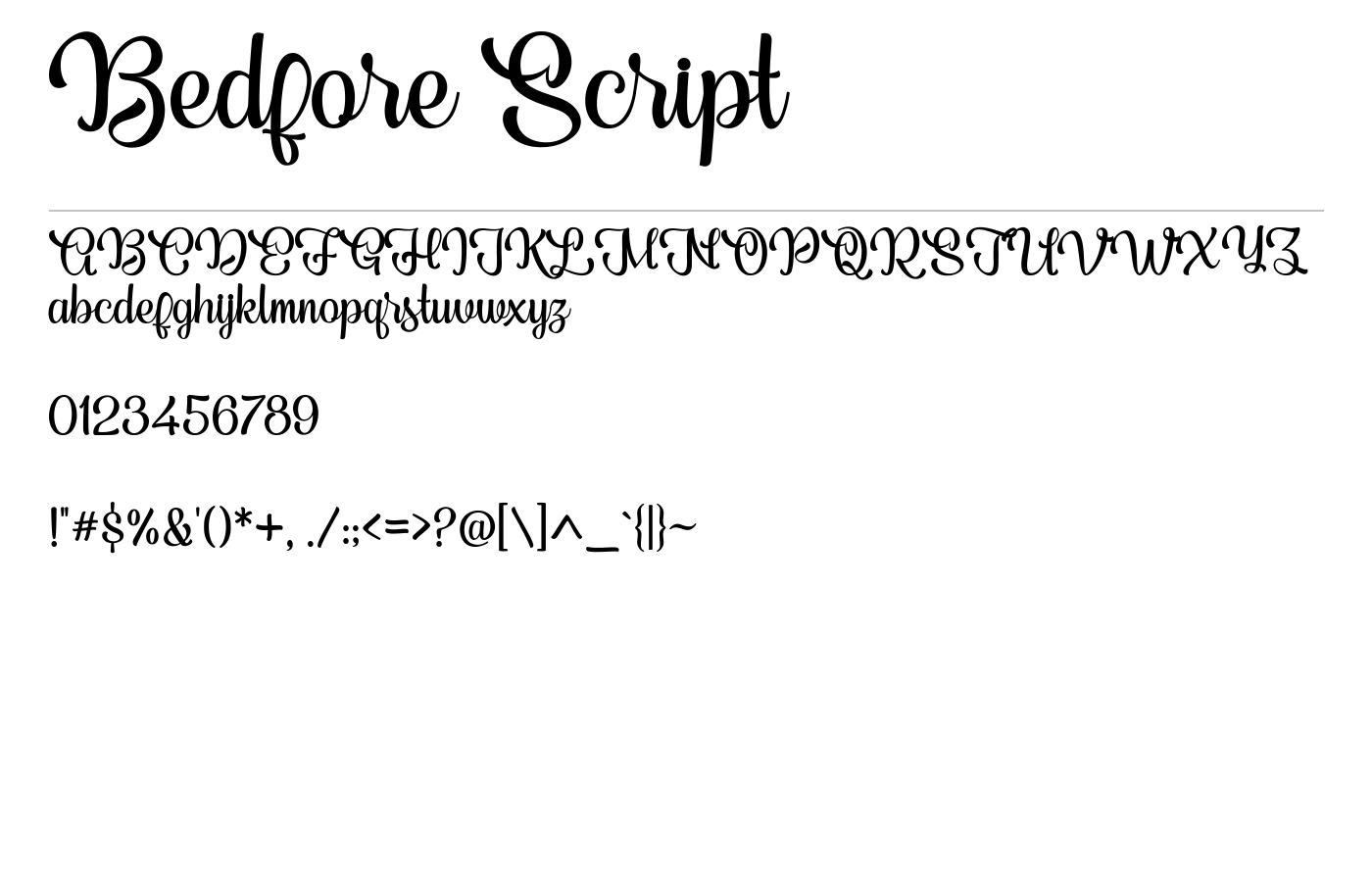
Bedfore Script is an elegant script font featuring smoothly flowing, connected letterforms with a moderate contrast in stroke weight that gives it a refined yet approachable feel. Its playful curls and swashes add a handcrafted charm, making it ideal for invitations, branding, and creative projects that seek a sophisticated, yet friendly touch. This font works beautifully in headlines and logos where a stylish, personalized flair is desired.
Bedfore Script Font
About Bedfore Script Font
| Font family | Bedfore Script Font |
| Designer | Lettersams |